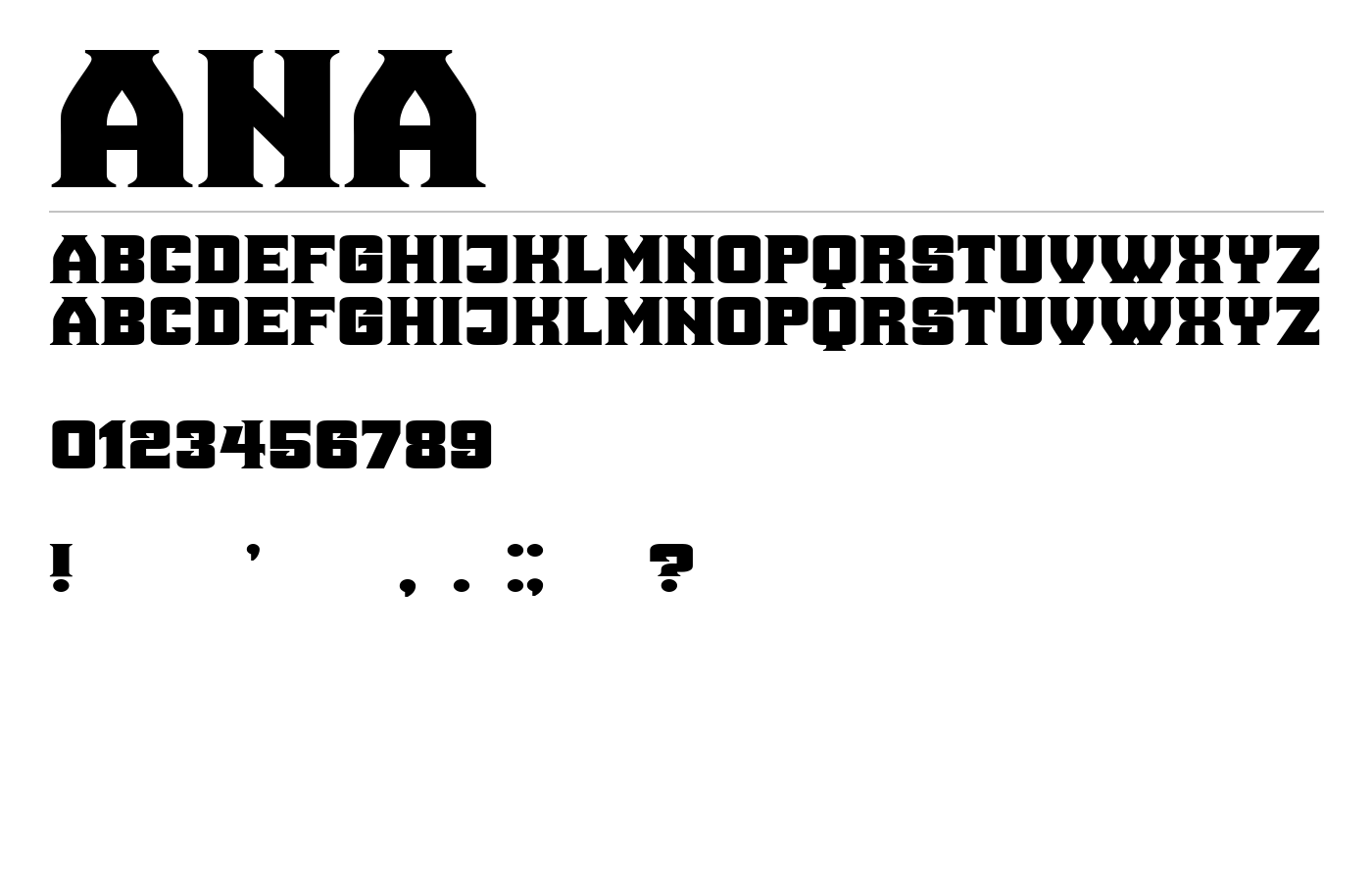
Ana Font is a bold, slab serif typeface with a strong, vintage-inspired character. Its thick, blocky strokes and pronounced serifs give it a sturdy, impactful presence, making it perfect for headlines, posters, and branding that needs a confident, retro feel. This font works well in designs seeking a mix of boldness and classic style, especially in fashion, packaging, or editorial projects.
Ana Font
About Ana Font